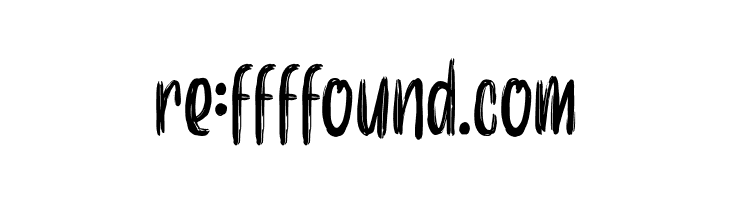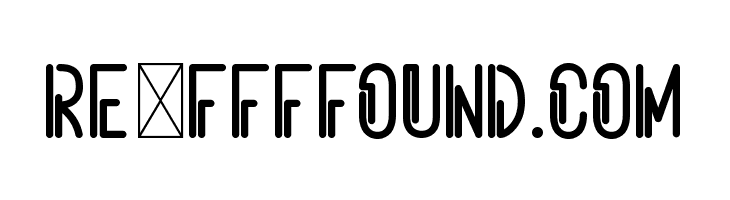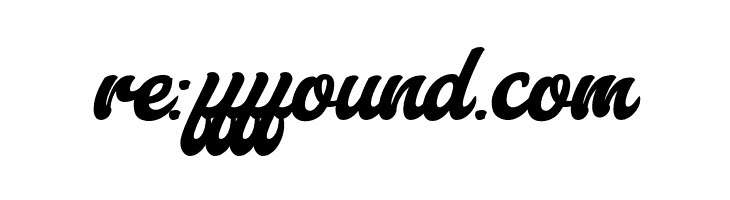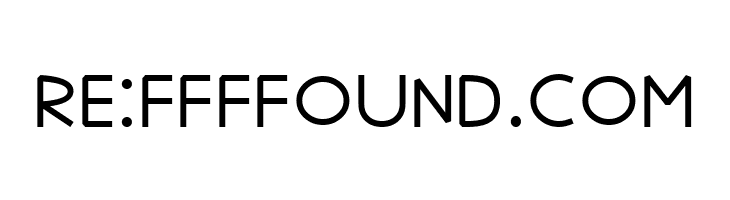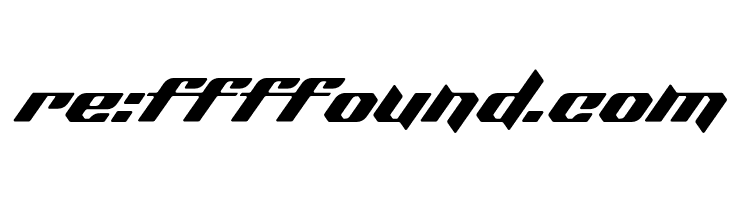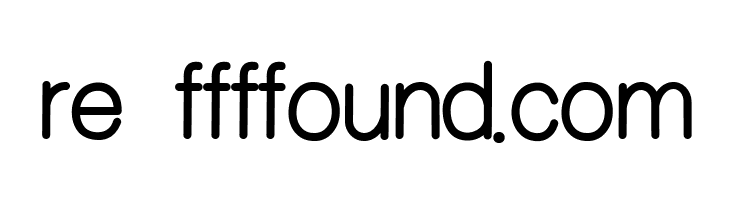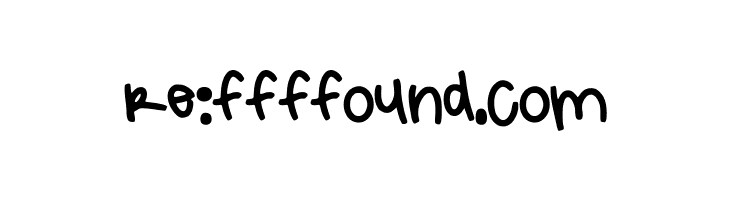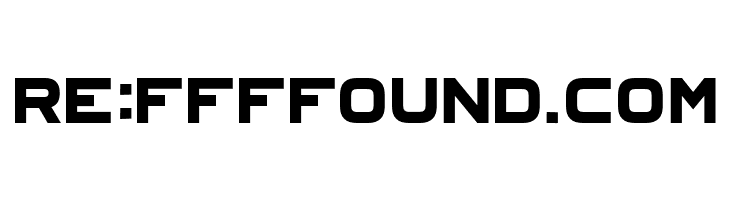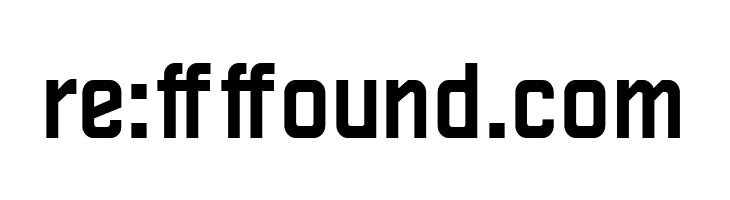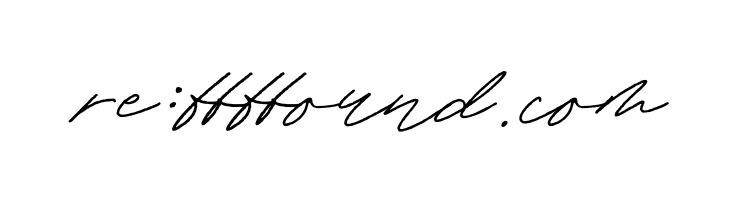
• AdvisorPersonalUse-Regular
A graceful script font with fluid, cursive strokes and elegant connections.
• Advocate Script
A bold, flowing script font with elegant curves and connected strokes.
• Advokat Modern
A bold, modern font with sharp, angular lines and a unique flair.
• Aedesty Personal Use
A lively and expressive handwritten font with dynamic strokes and a playful style.
• Aegyptus Bold
A bold, modern sans-serif font with clean lines and balanced spacing.
• Aeiou Regular
A playful, handwritten font with rounded, irregular letterforms.
• Aella FREE
An elegant script font with flowing, interconnected letters and ornate uppercase characters.
• AellaFREE
An elegant script font with flowing, interconnected letters and a classic calligraphic style.
• aerial demented
A bold, fragmented font with a chaotic and edgy style.
• Aerial_Demo
A modern, rounded sans-serif font with excellent readability.
• Aerillyo
A bold, expressive script font with flowing, cursive letterforms.
• Aerillyo
A bold, elegant script font with interconnected characters and ornate flourishes.
• Aero
A dynamic, futuristic font with sharp angles and a forward-leaning slant.
• Aero Dynamic
A futuristic, geometric font with bold, angular shapes.
• AERO GLASS
A bold, futuristic font with geometric shapes and sharp angles.
• Aero_03
A bold, modern font with geometric, uniform characters and a contemporary style.
• Aero03
A bold, modern sans-serif font with a geometric and slightly condensed style.
• Aeroblade DEMO
A bold, futuristic font with sharp angles and a dynamic slant.
• Aerobrush
A bold, brush-style font with a hand-drawn, energetic appearance.
• Aerobrush
A bold, brush-style font with a hand-drawn, artistic appearance.
• Aerobus Personal Use